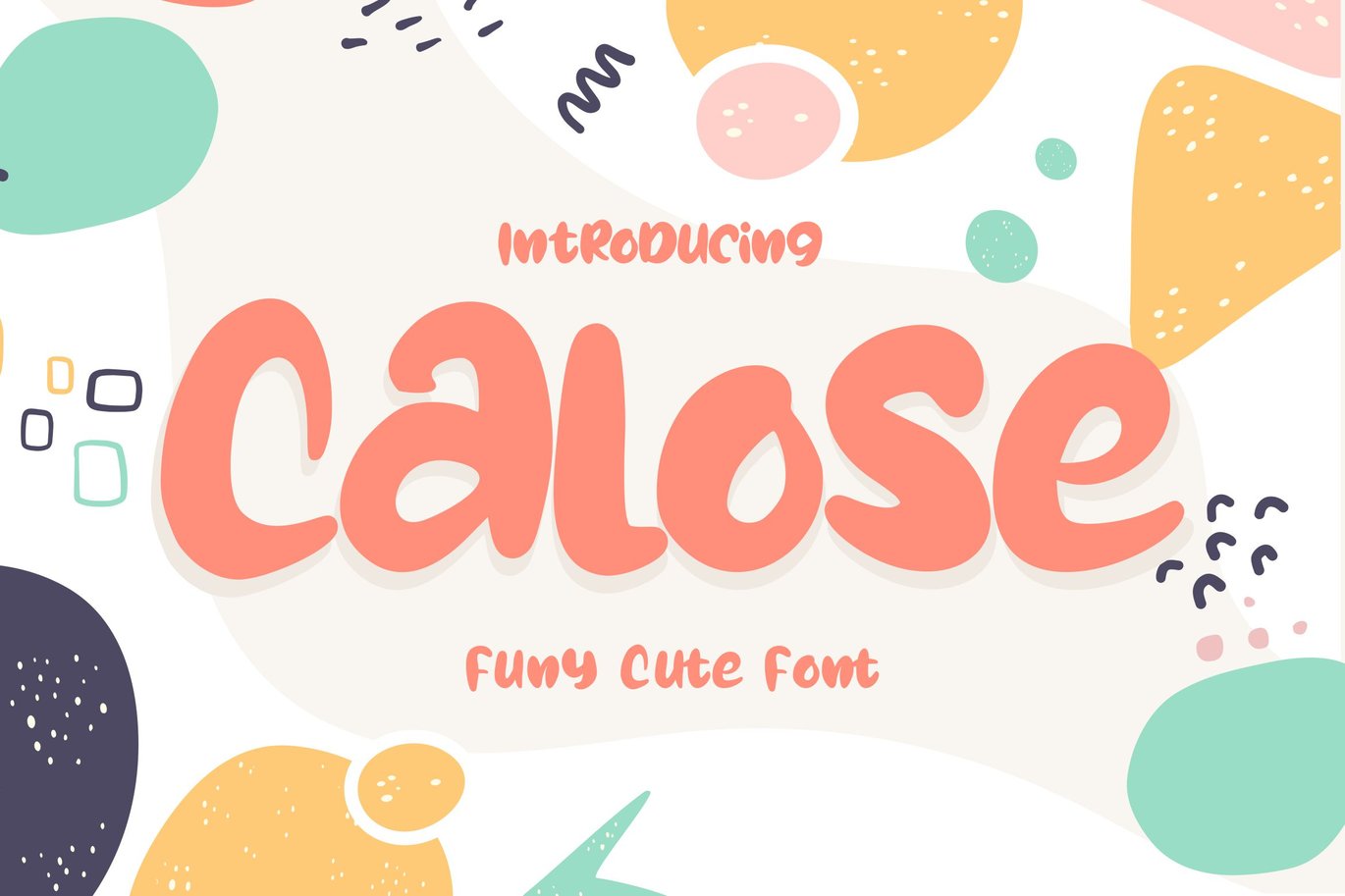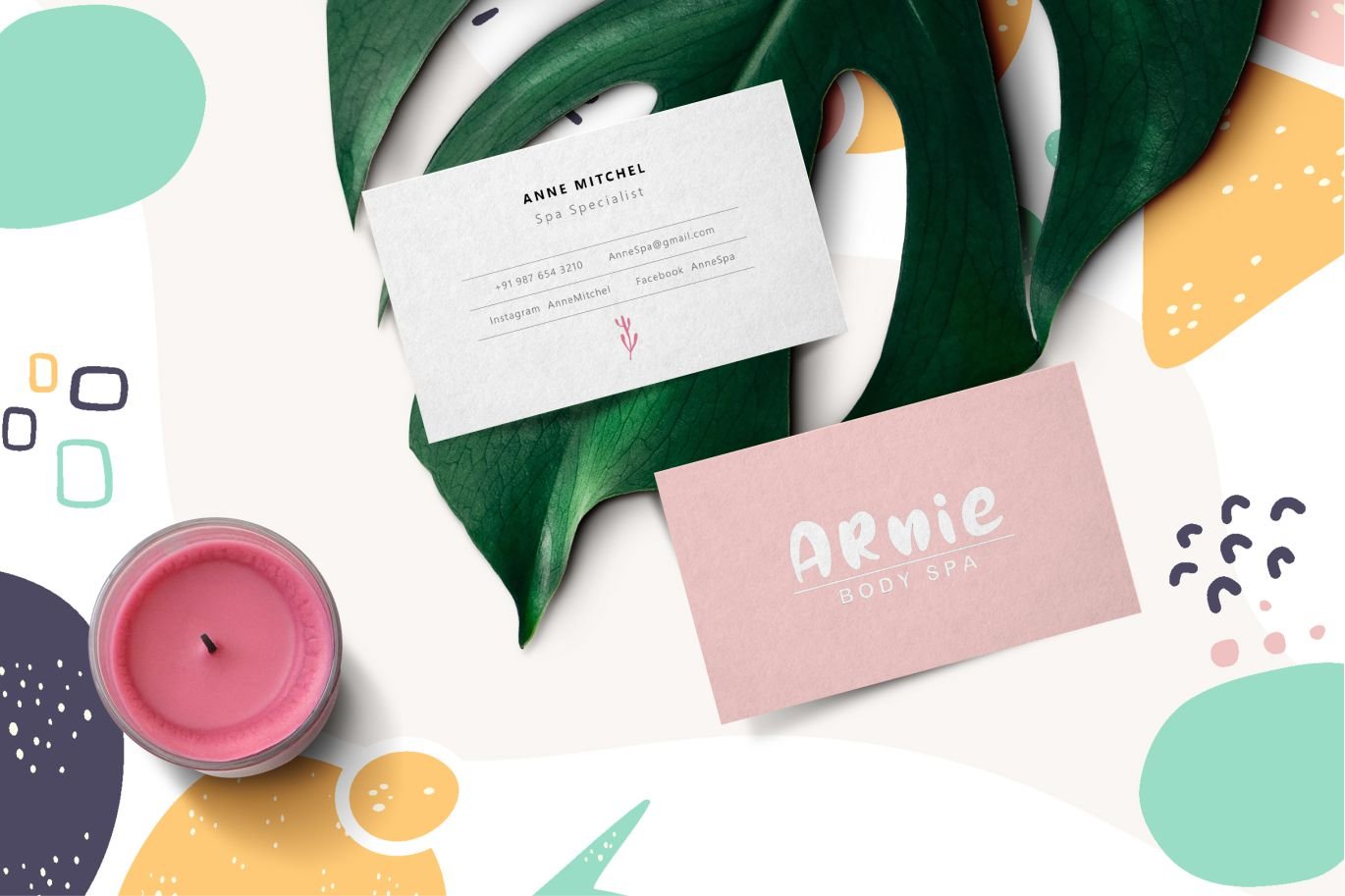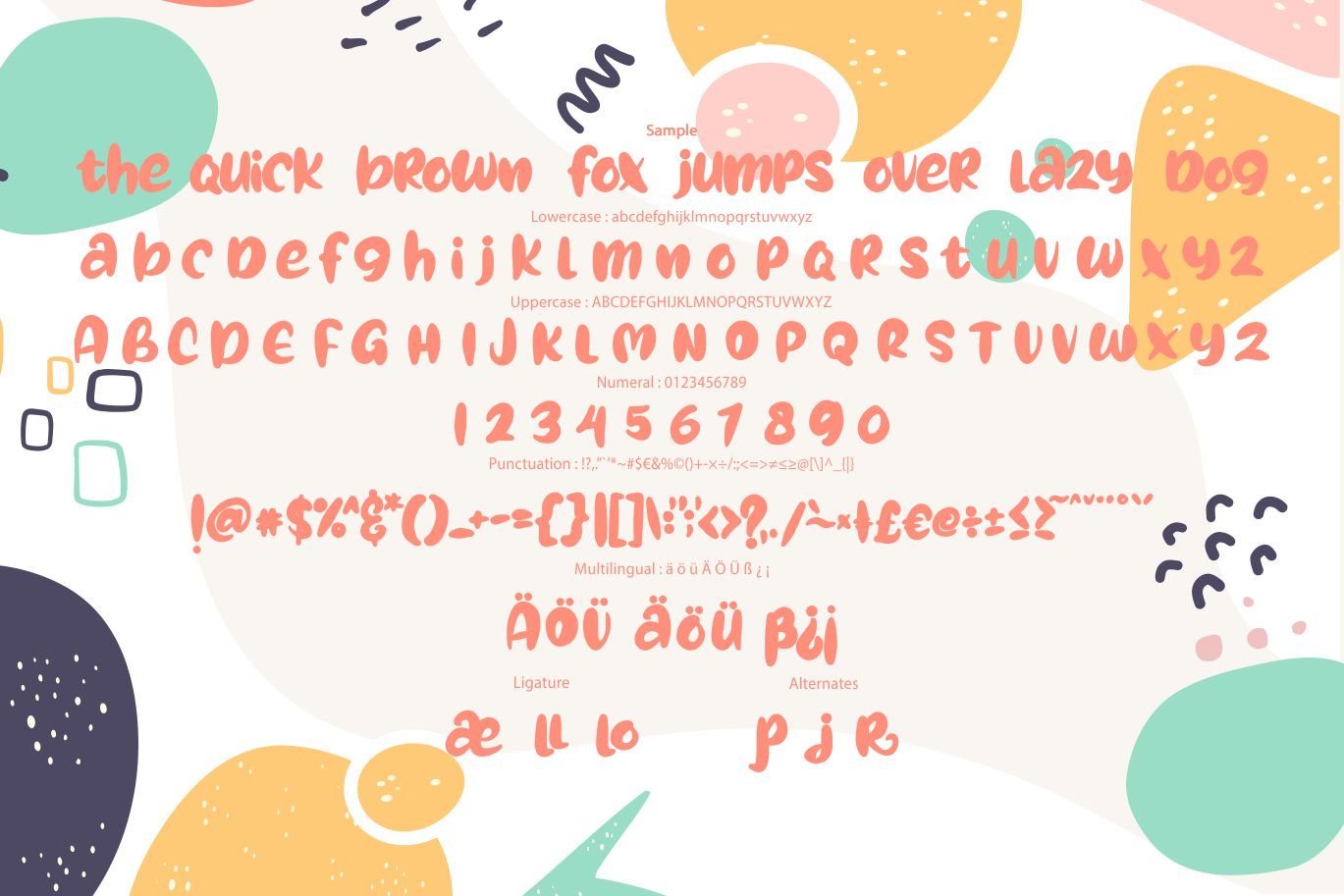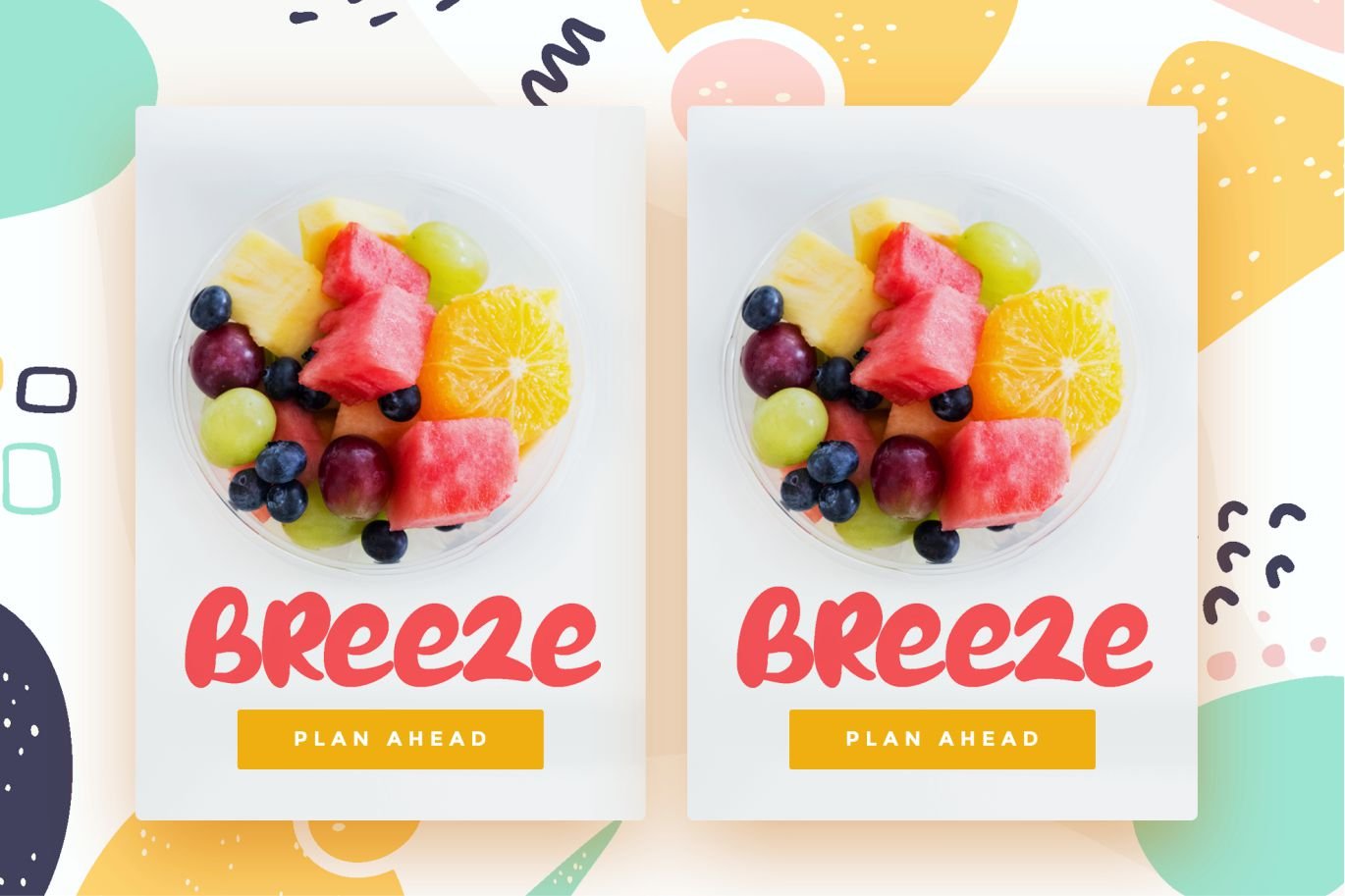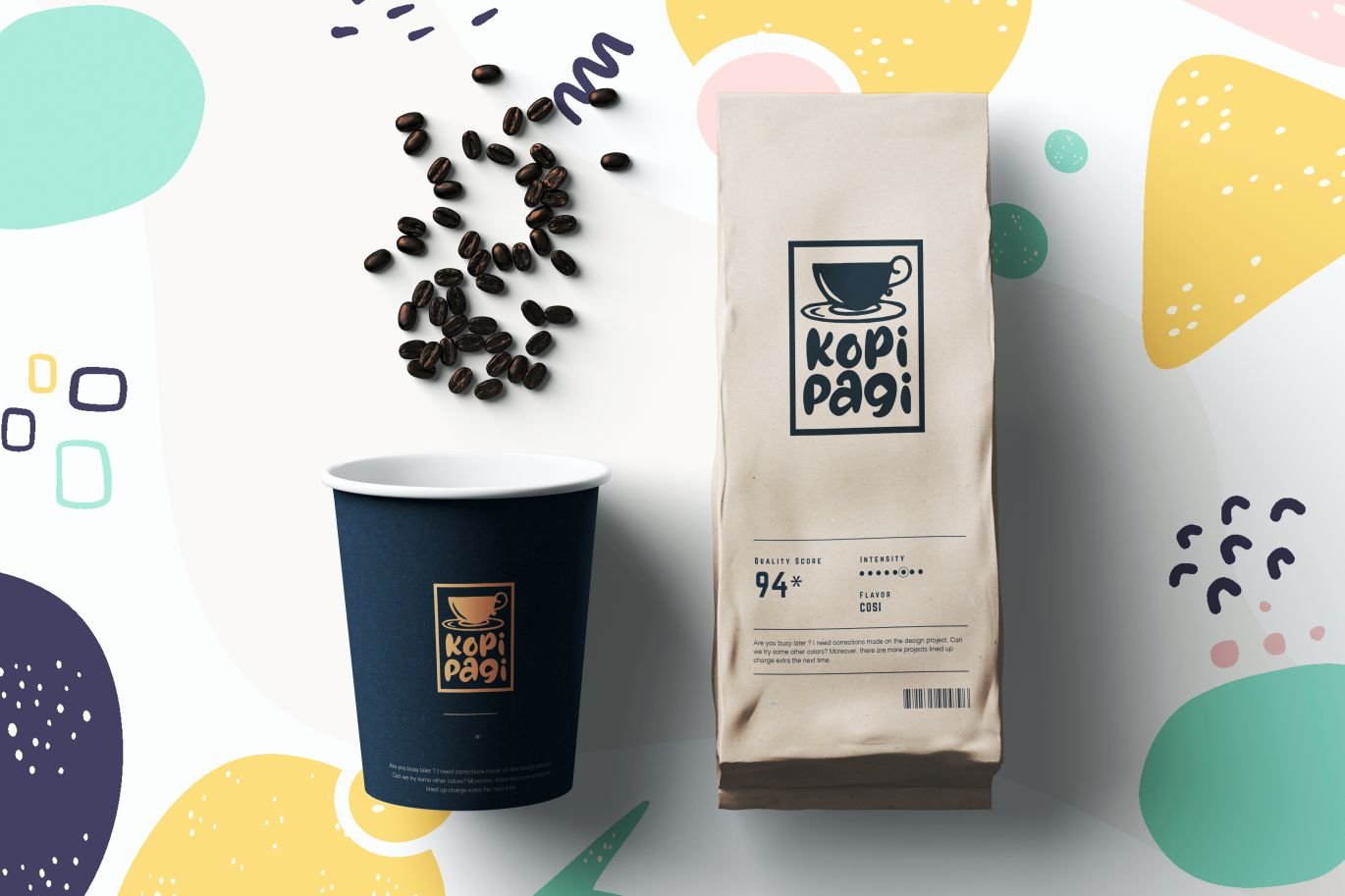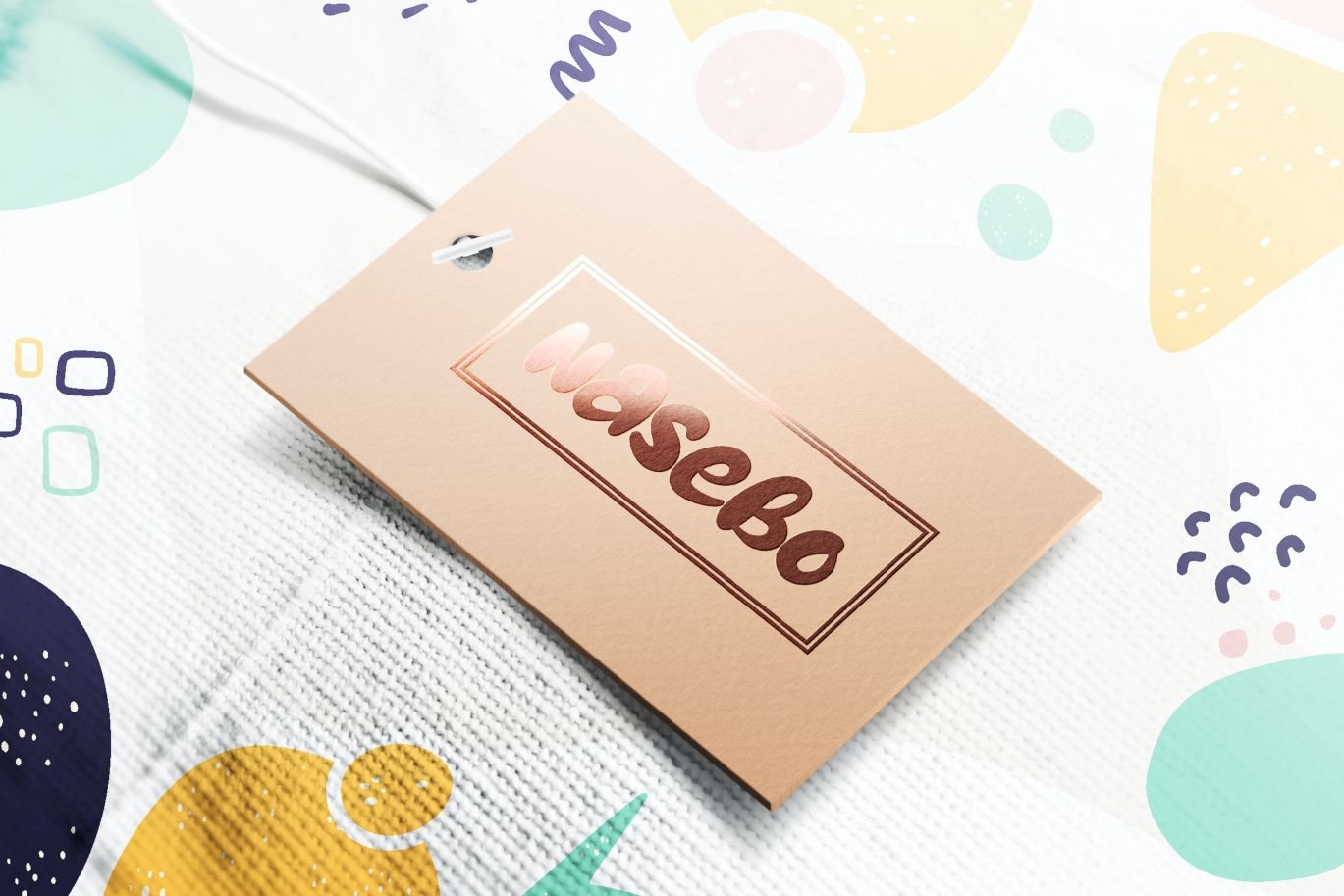
Calose | Funy Cute Font
Calose | Funy Cute Font with a calligraphy style, So beautiful on invitation like greeting cards, branding materials, business cards, quotes, posters, and more!